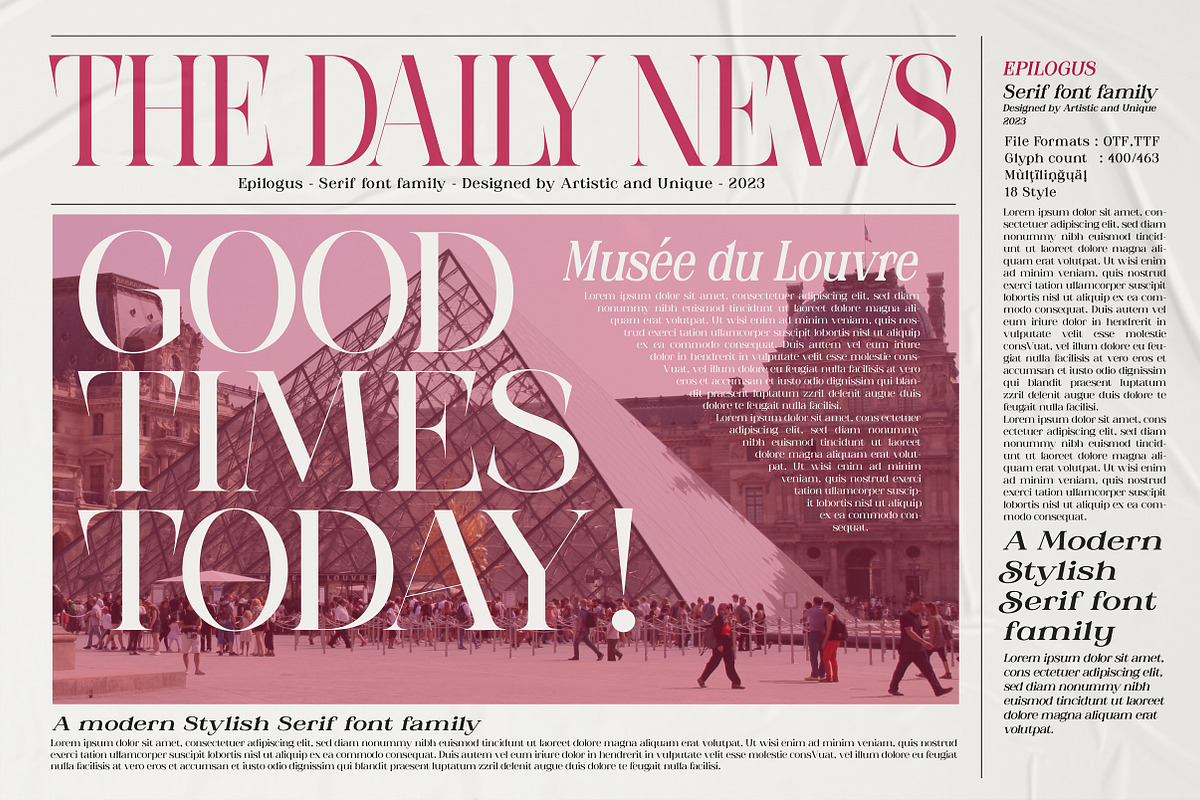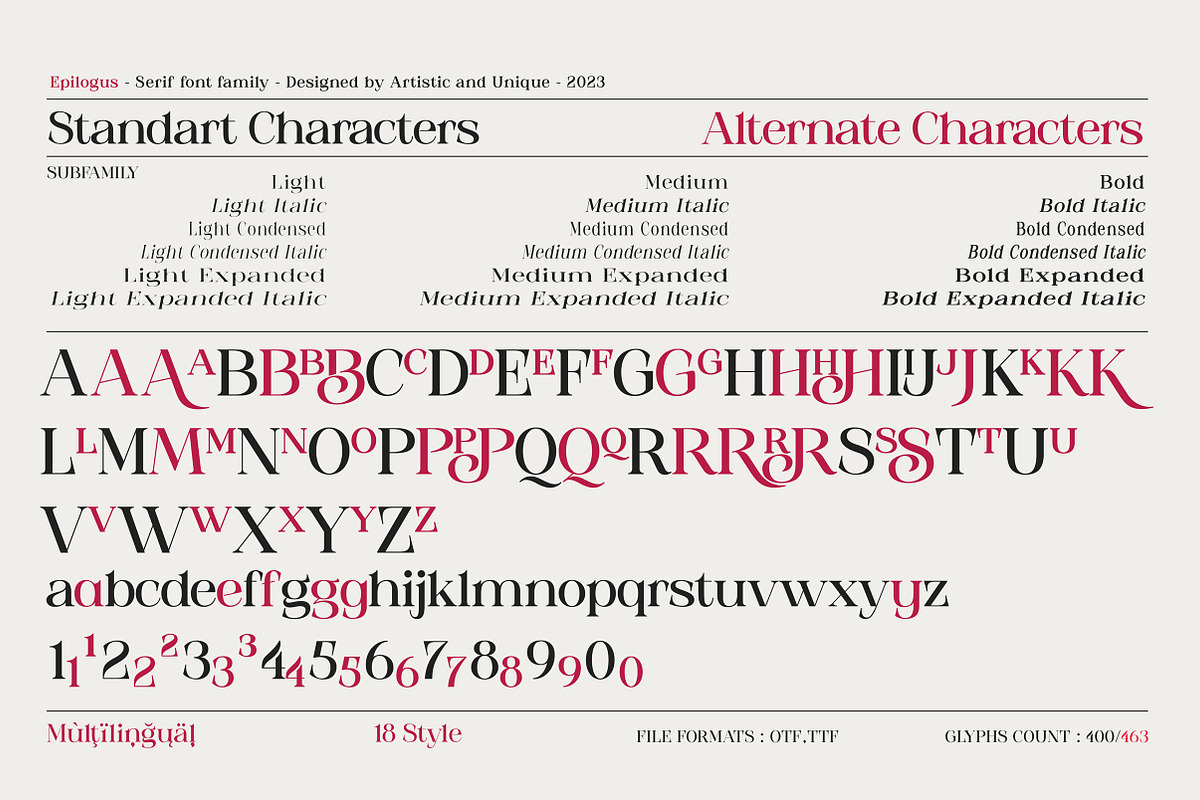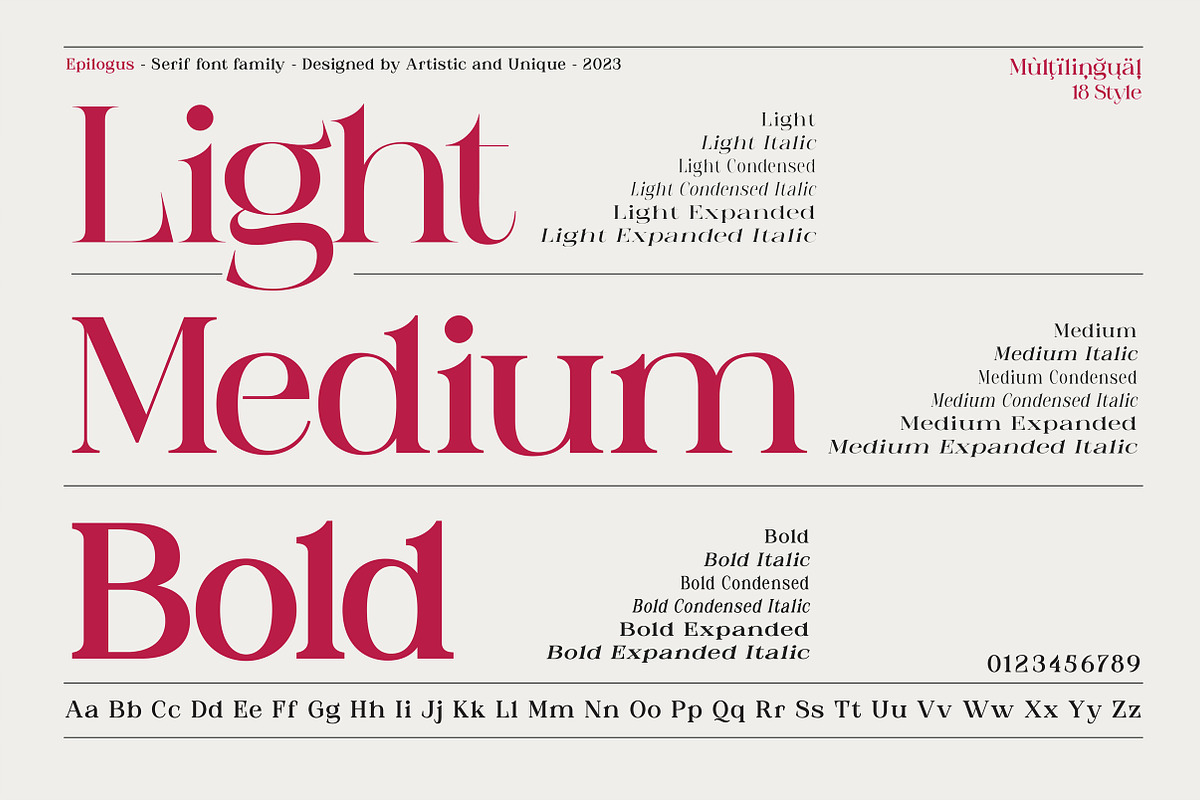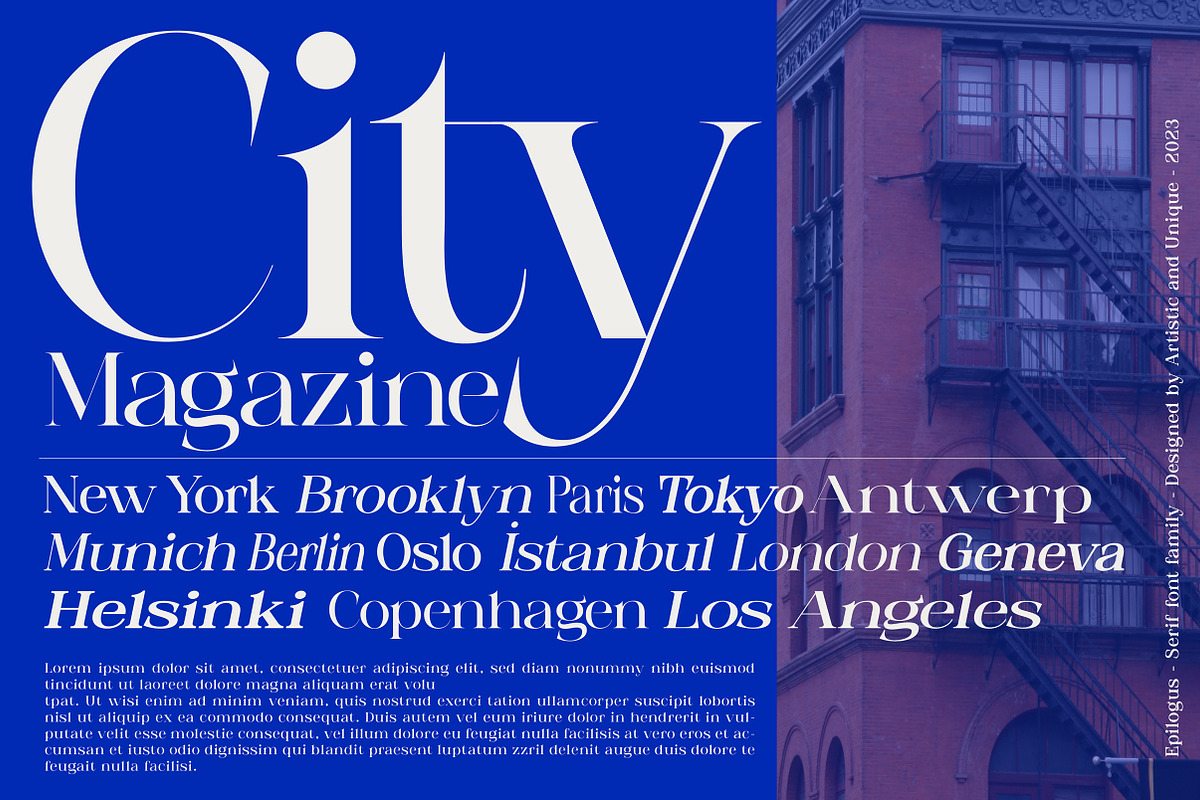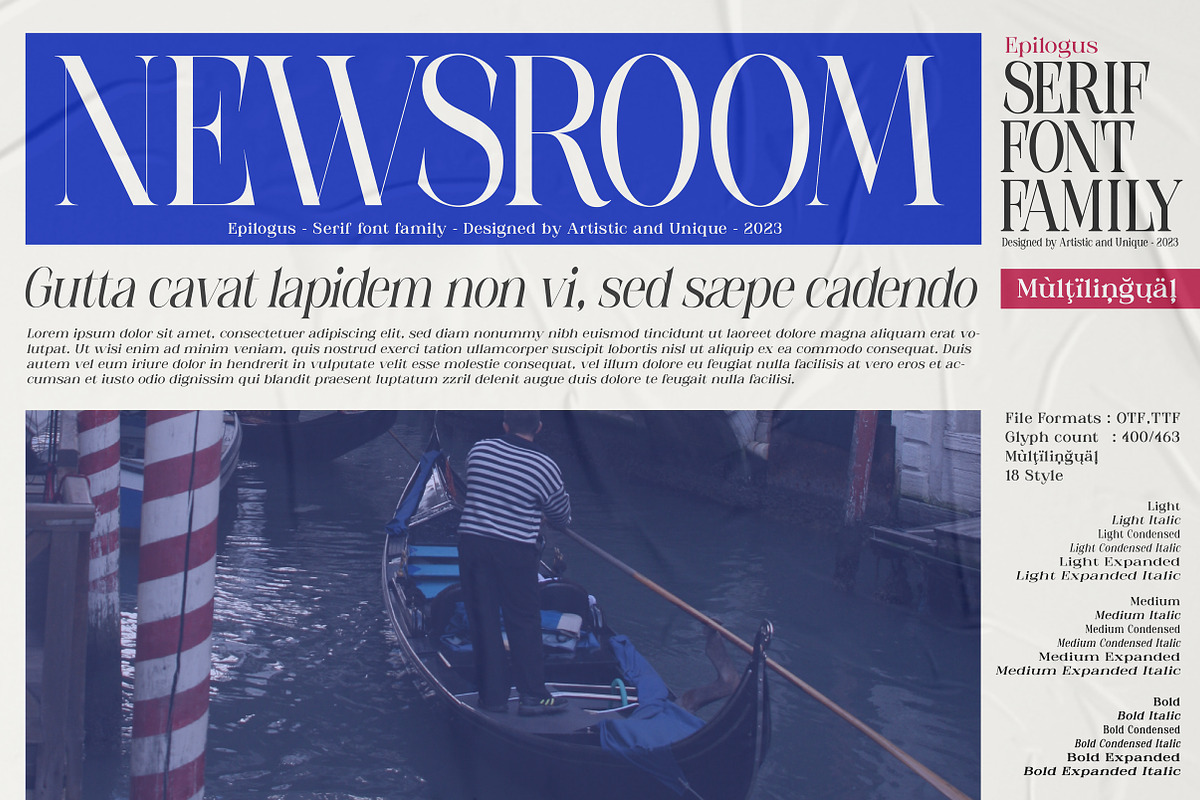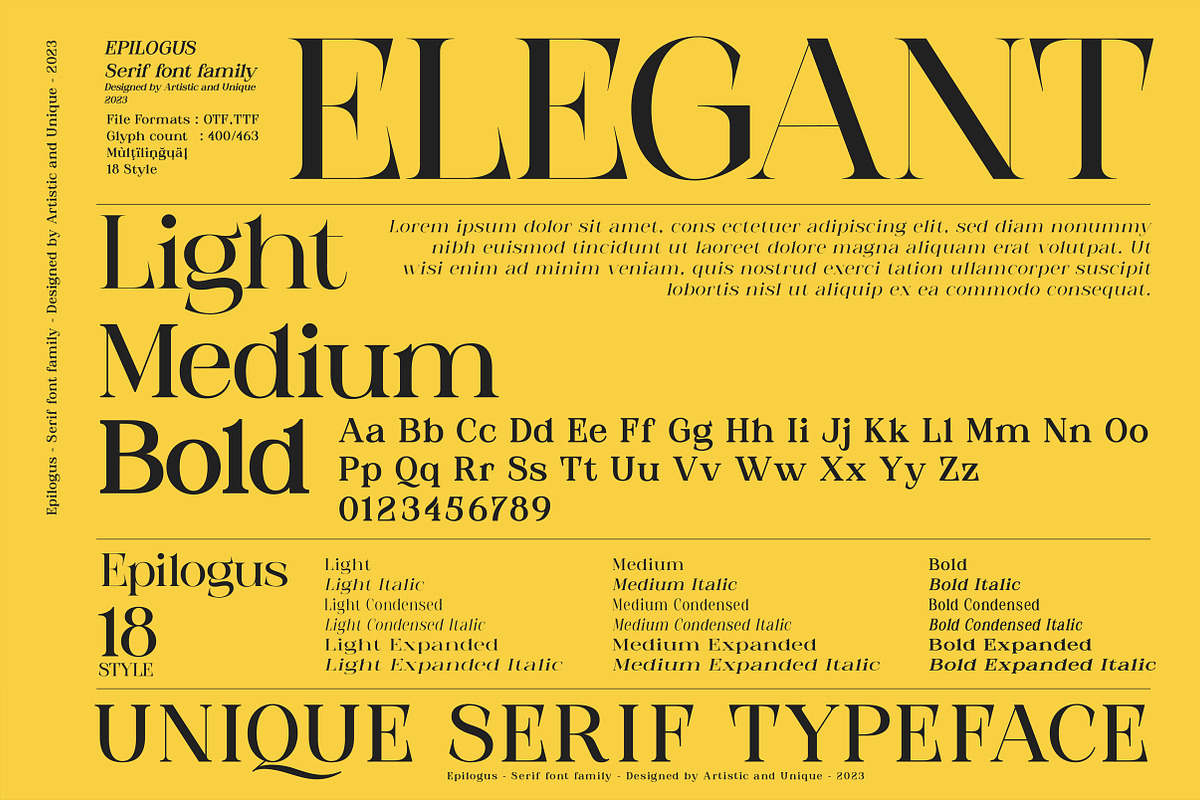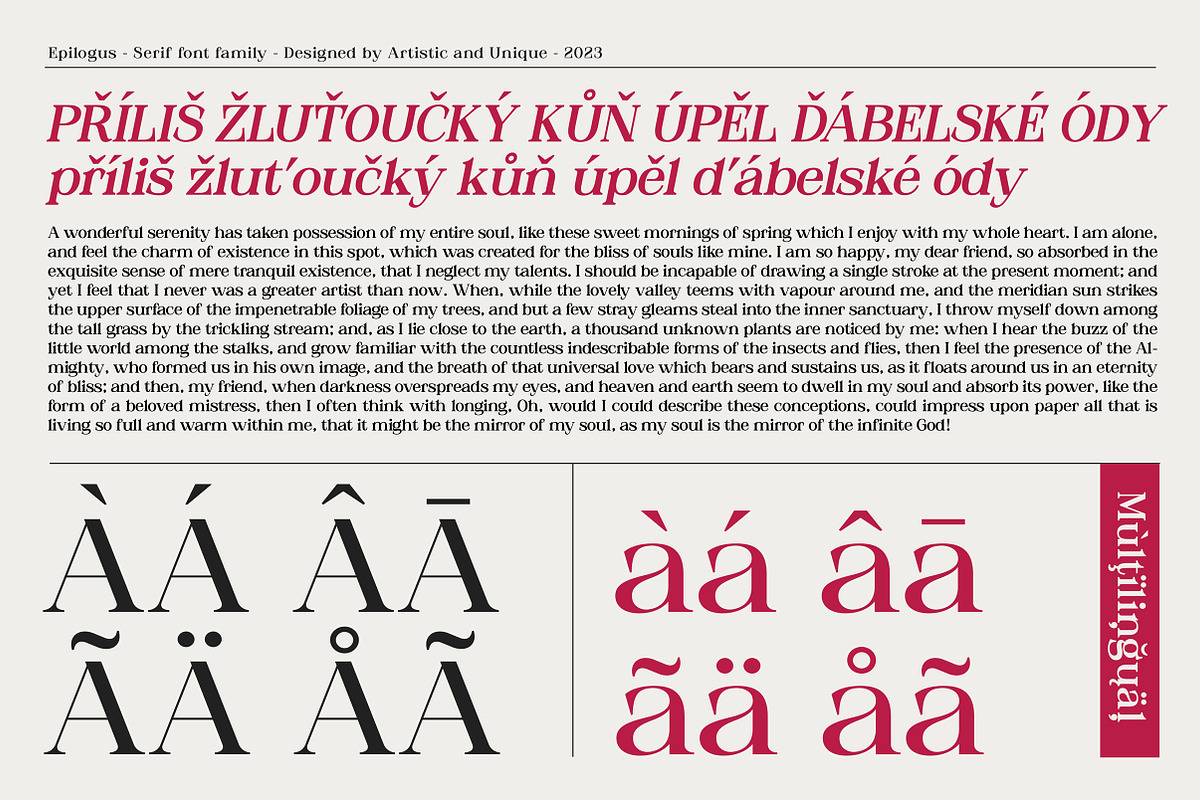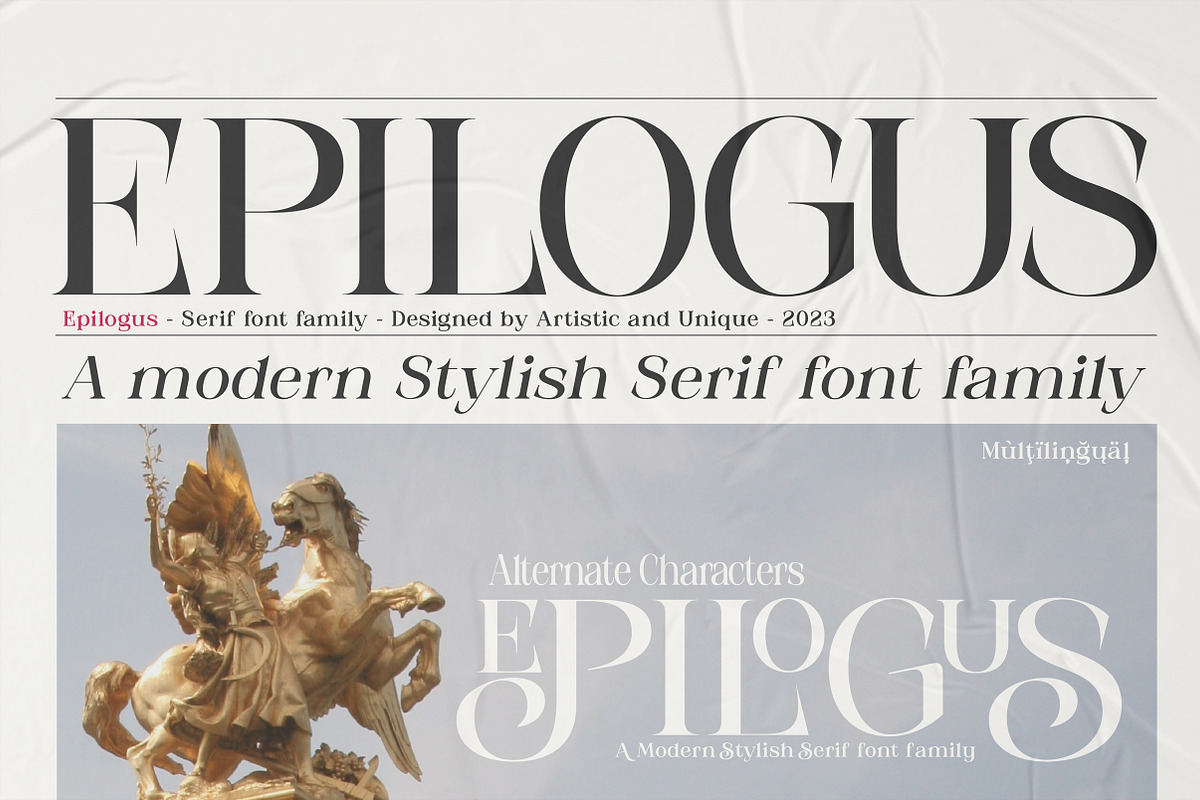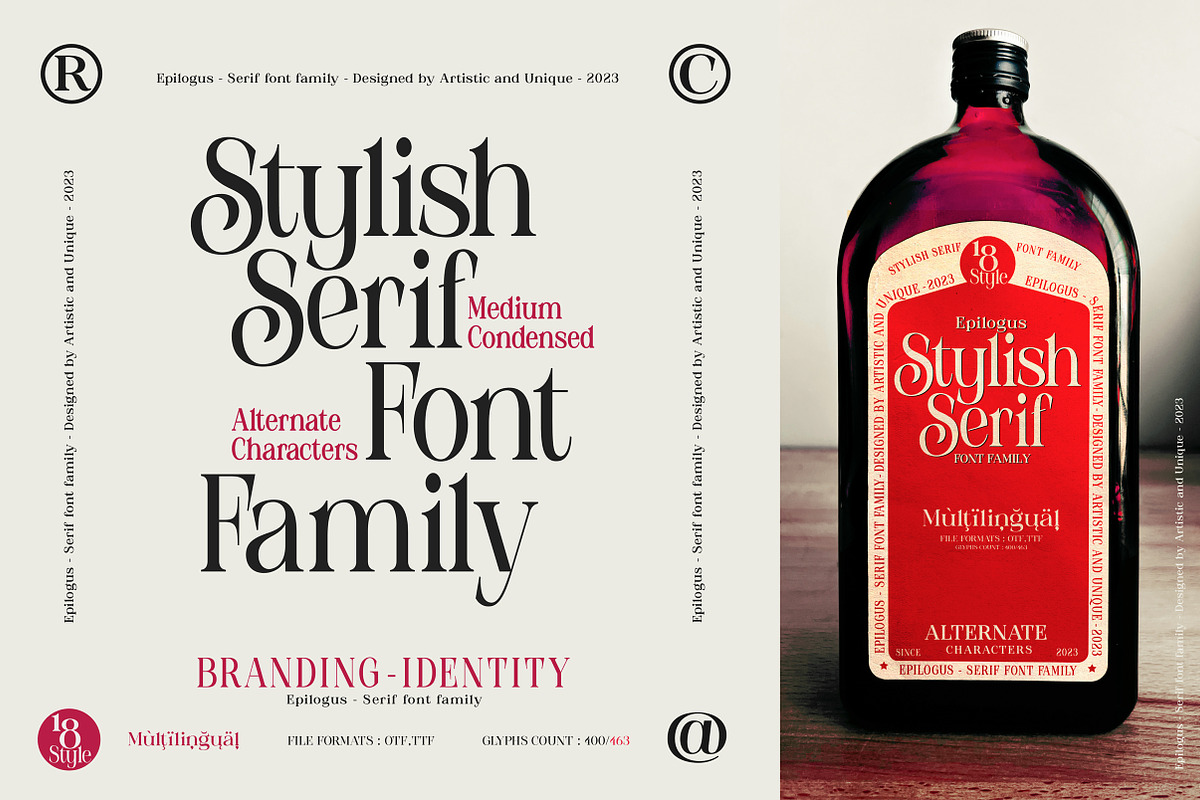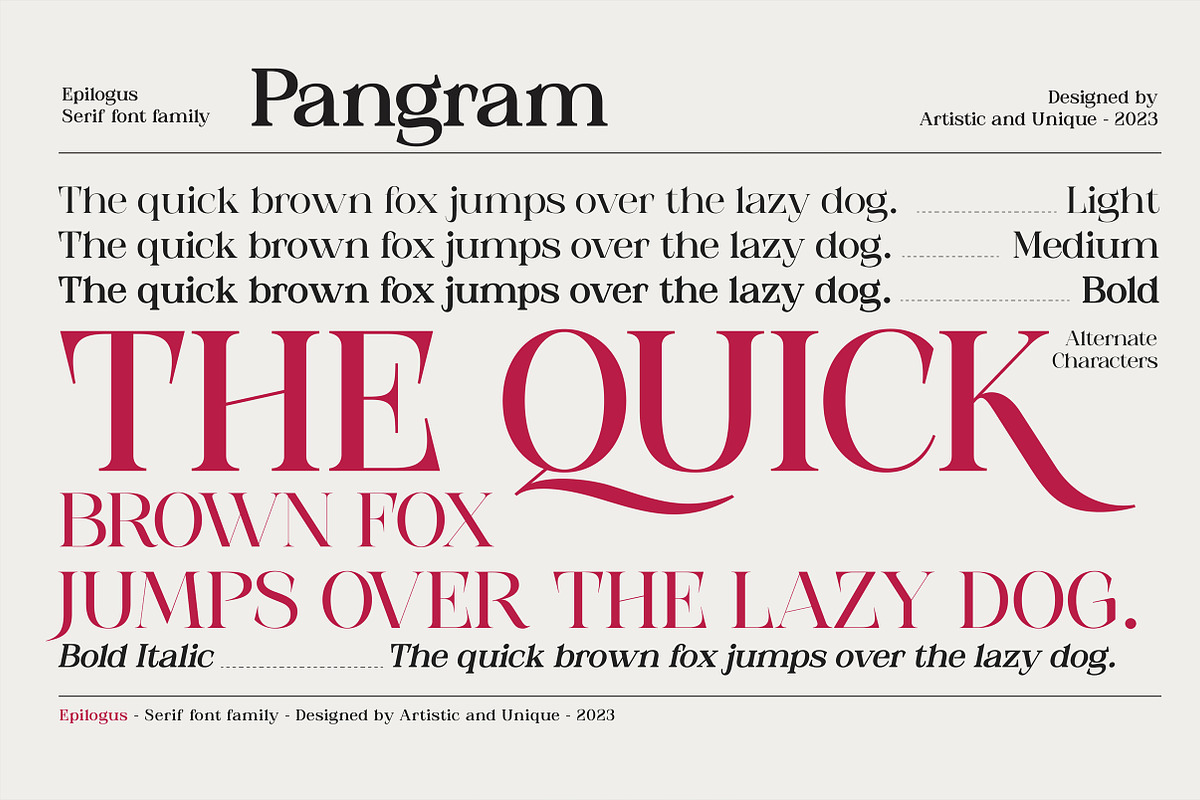
Epilogus - Serif font family
Epilogus - Serif font family - 18 Styles - Multilingual supports - OTF,TTF
Epilogus is an elegant serif font family with different alternative character designs. This font provides flexibility in all your projects with the alternatives it offers you with its multiple language options, 18 styles and rich glyph options. You will have the opportunity to enrich the content of your projects with alternative characters.
According to the purpose of use in typographic compositions that you will create with the aesthetic structure of alternative characters; You can enrich your titles in books or magazines, and your logos in branding. You can benefit from the elegant structure of standard characters in your plain texts.
Especially for editorials, magazines, books, branding, packaging, logo design, web design, headlines, movie titles etc.
If you're looking for a font with stylistic alternatives, Epilogus serif font might meet your needs.
With this font you can create your unique designs.